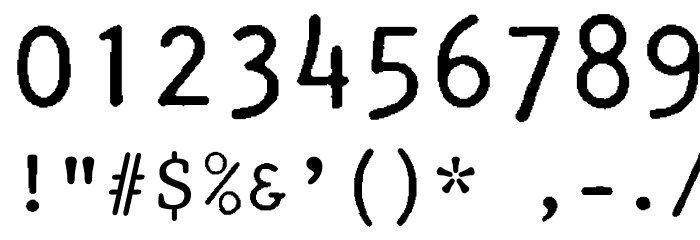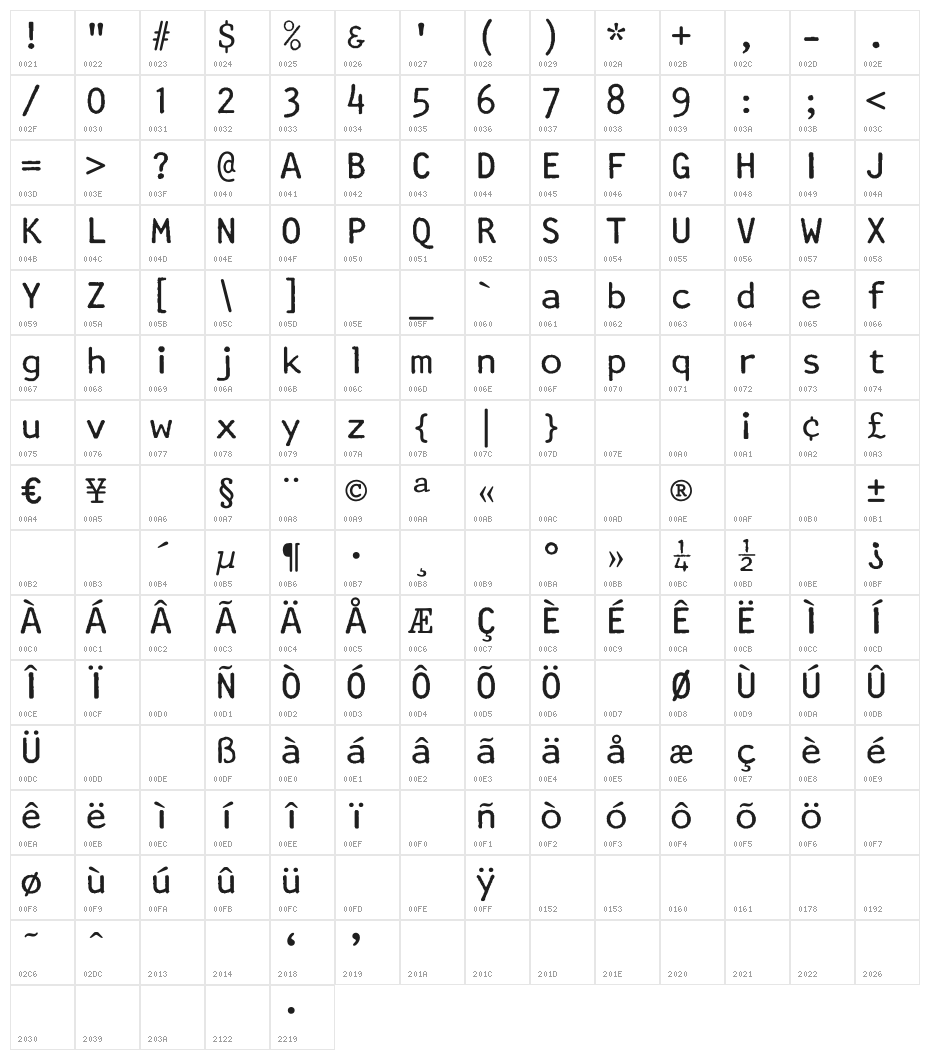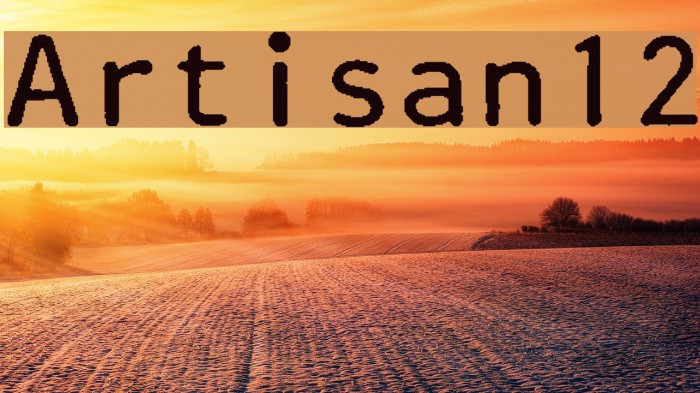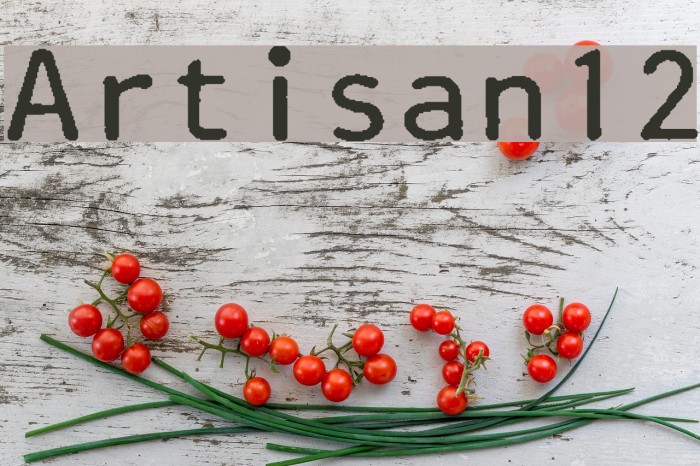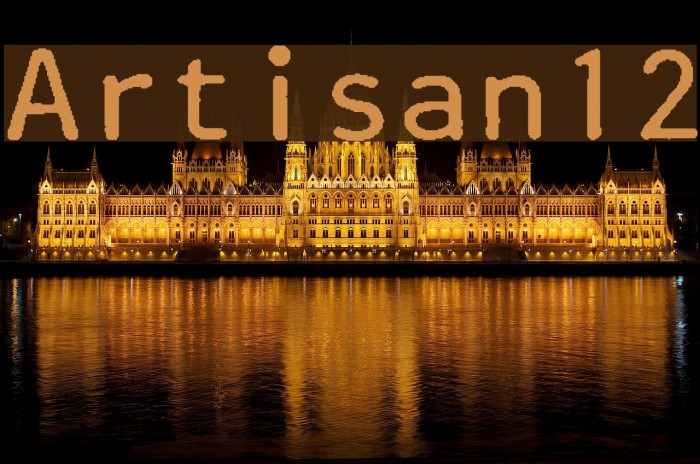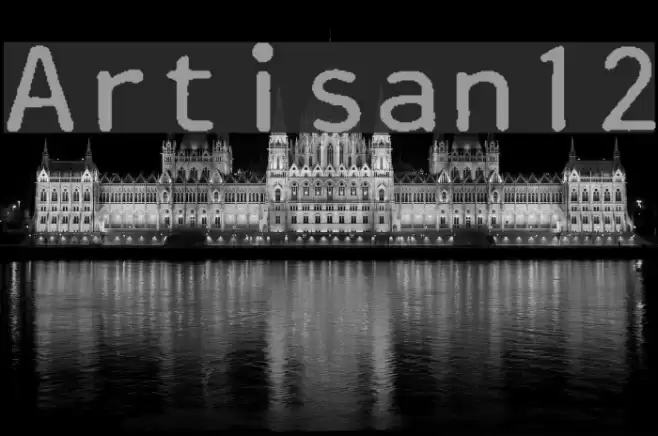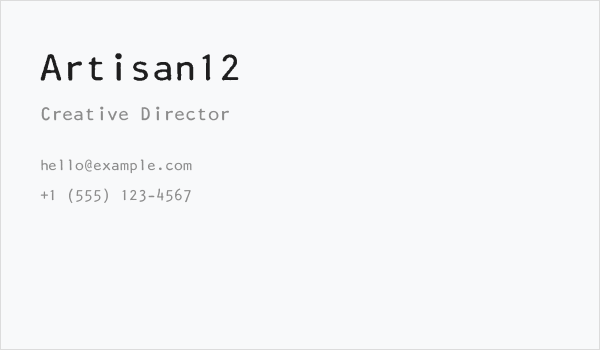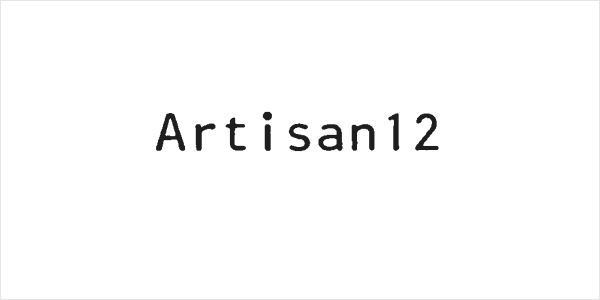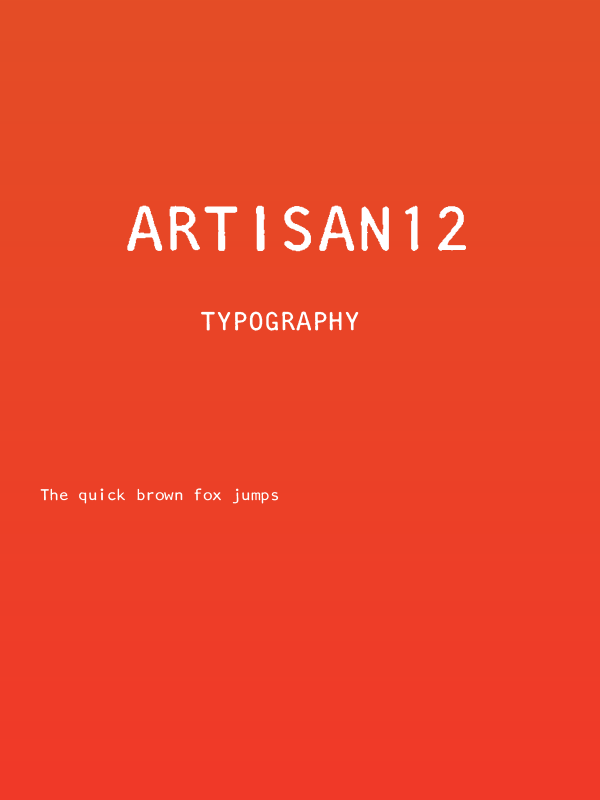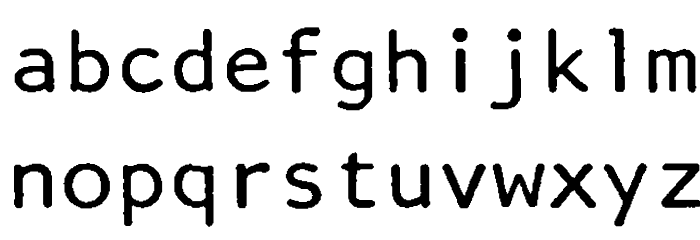
Artisan12 Description
This font features a handcrafted, artisanal style with a slightly uneven and organic appearance. The characters are rounded and have a casual, friendly feel, reminiscent of hand-drawn lettering. The uppercase and lowercase letters maintain a consistent style, with a playful yet legible design. The numerals and special characters complement the alphabet with similar characteristics, ensuring a cohesive look. This font's unique charm makes it suitable for projects that require a personal touch or an informal aesthetic.
| Proposed Projects | Ideal for branding, packaging, greeting cards, and creative projects that require a personal touch. |